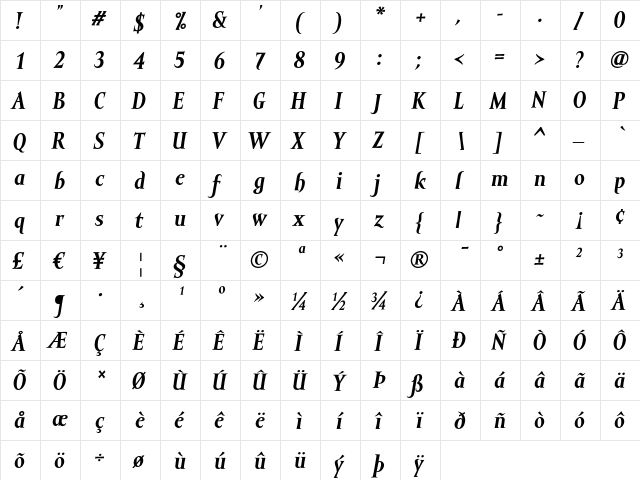
Mramor Text Bold Italic
Design Context for Mramor Text Typeface
Mramor Text is a composed and adaptable typeface that performs quietly and consistently across a wide range of design contexts. The slanted form adds forward momentum and visual energy. Its bold stroke weight gives it real presence on the page.
Pro Tip: Use Mramor Text for emphasis, pull quotes, and subheadings where its slanted energy can add rhythm to the layout.